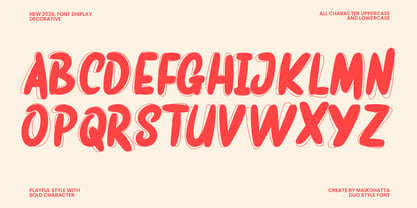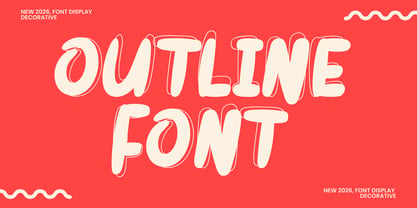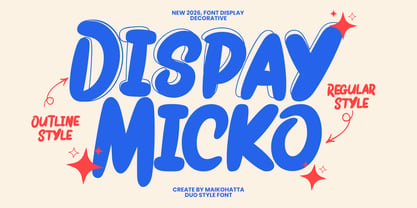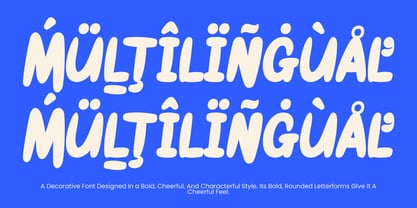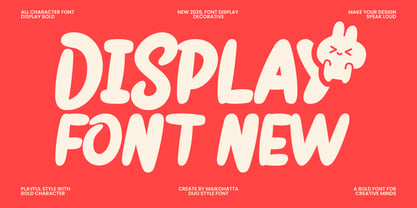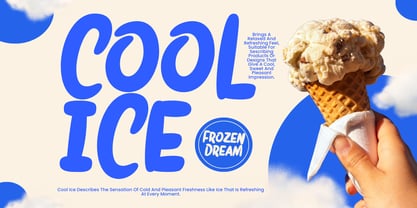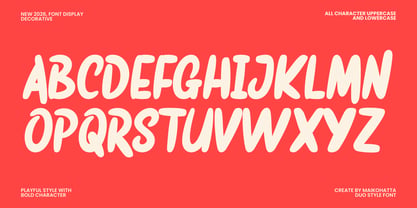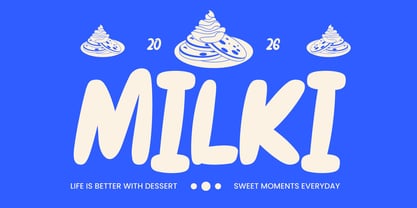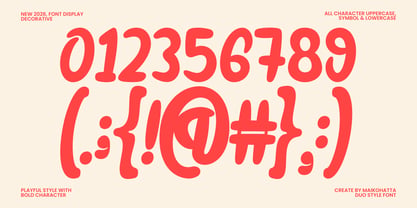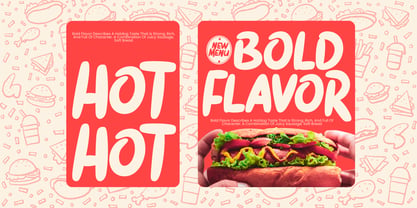
Dispay Micko
The Dispay Micko Font Family was designed by Gilang Ternadho and published by Maikohatta. Dispay Micko contains 2 styles and family package options. More about this family
Introducing our new product Dispay Micko – Playful Bubble Display Font Dispay Micko is a playful and bold display font designed to bring fun and energy to your creative projects. With its chunky bubble shapes and smooth curves, this font creates a friendly and eye-catching look that is perfect for modern designs. This font comes with two styles: Regular and Outline, allowing you to mix and match for more creative typography. The cheerful character style makes it ideal for kids designs, posters, branding, packaging, social media graphics, and many other creative projects. Dispay Micko is designed to stand out while keeping readability, making it a perfect choice for headlines and display purposes.